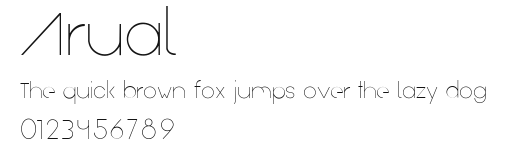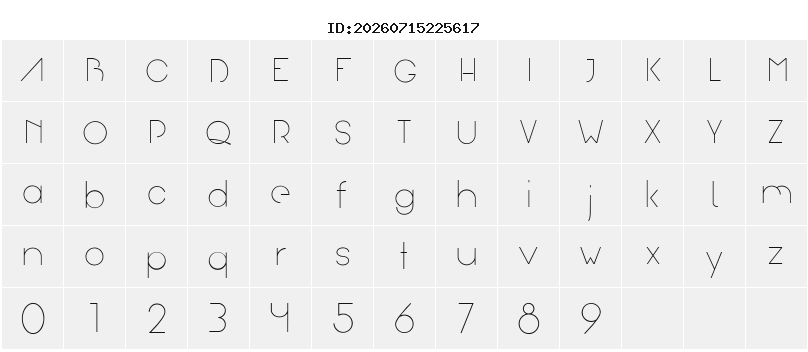
• Font Name: Arual
• Font Style: Light
• Full Font Name: ArualLight
• Designer: Mirco Curtis Mack
About Arual.ttf
Arual.ttf is a modern, elegant sans-serif font designed for ultimate readability and visual harmony. Perfect for branding, headlines, web design, and print materials.